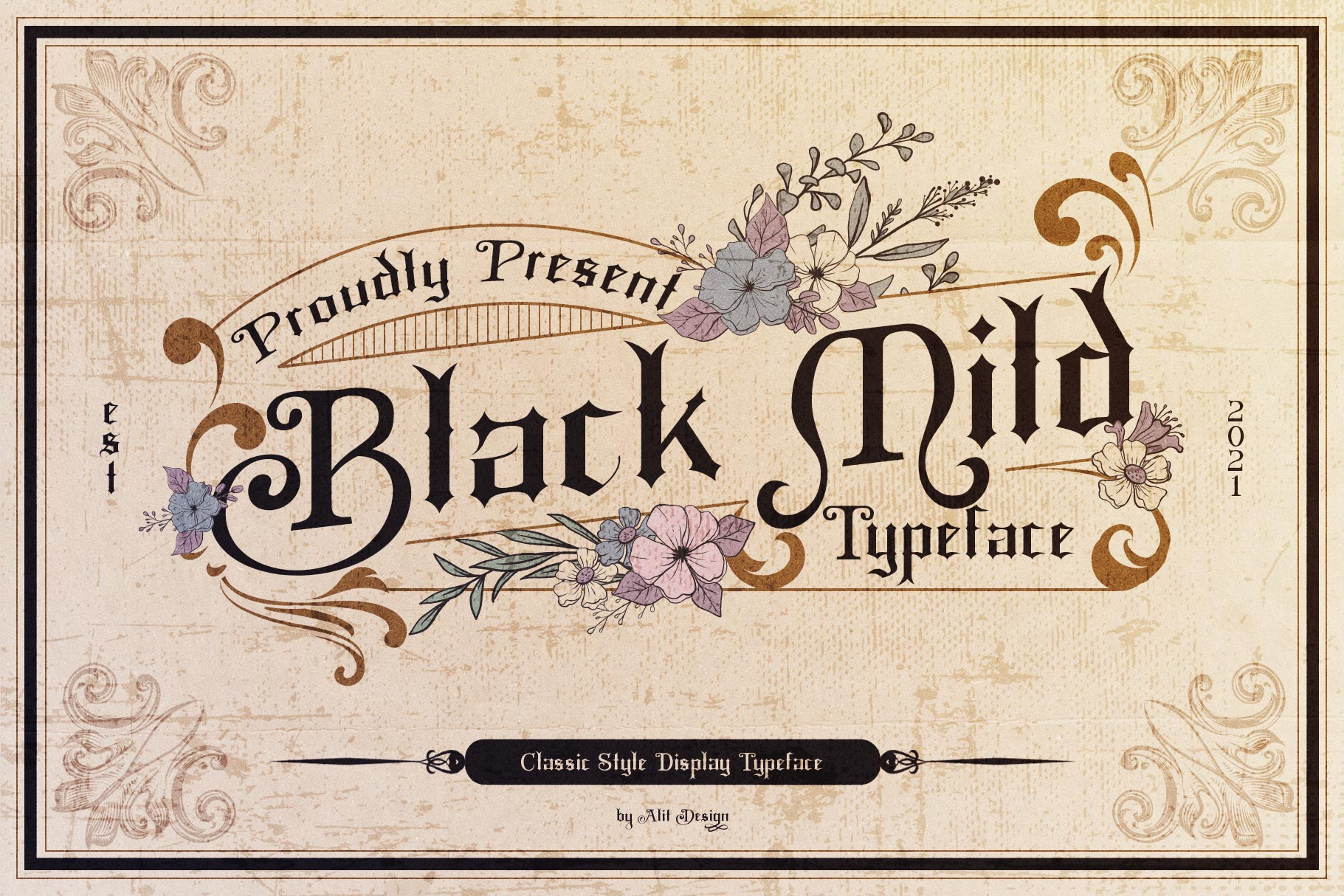
Black Mild Typeface
Introducing Black Mild Typeface A font that is inspired by the old gothic style writing which is commonly known as the Black letter style. But the Black Mild typeface is made with a simpler and more modern touch to fit into a younger and cooler design. The Black Mild typeface is very suitable for design themed with gothic, vintage, rock designs and for whiskey packaging designs.